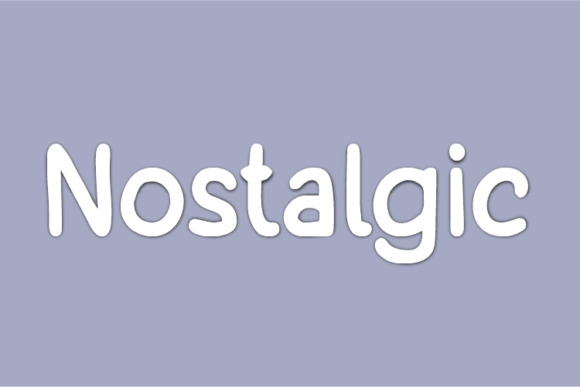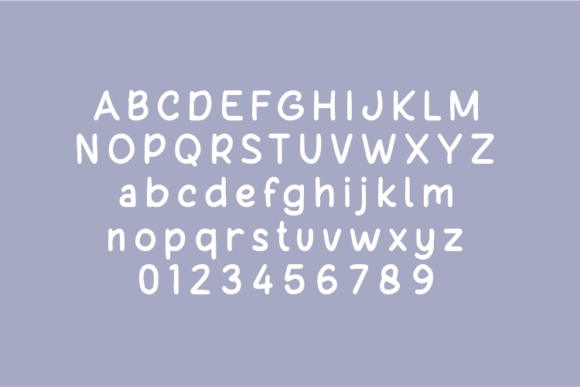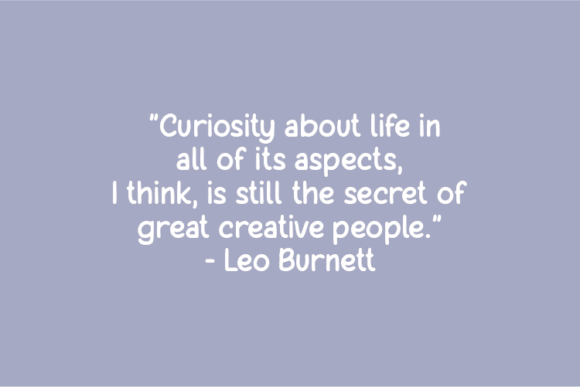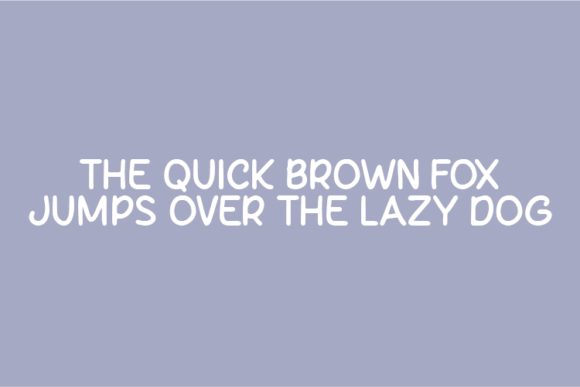
Nostalgic Font
About Nostalgic Font
Nostalgic is a natural handwritten font that boasts a distinctive quality — each character is crafted without altering a single node in its indentation. This unique approach makes Nostalgic an interesting and captivating typeface, perfect for a variety of design applications including quotes, notes, t-shirts, and product designs.
The natural and unaltered design of Nostalgic gives it an authentic and handcrafted feel. This font captures the essence of genuine handwriting, making it a suitable choice for projects that require a personal and heartfelt touch.
Whether you’re working on expressive quotes that demand a unique presentation, creating notes with a natural and organic look, or designing t-shirts that require a one-of-a-kind font, Nostalgic stands out as a font that adds a layer of authenticity and charm.
The uniqueness of Nostalgic becomes a key feature in its versatility. It adapts well to different design contexts, making it a valuable asset for your creative toolkit. The font’s distinctive character becomes an expressive element that elevates the overall visual appeal of your designs.
Imagine Nostalgic gracing your projects, whether on heartfelt quotes, personal notes, or product designs that require an original touch. The font becomes more than just a typeface; it becomes a design asset that enhances your creations with a natural and unique aesthetic.
In summary, Nostalgic is a font that celebrates the beauty of natural handwriting, making it a standout choice for various design applications. Embrace its unaltered and interesting design confidently, and let Nostalgic be the typeface that infuses your projects with authenticity and character.